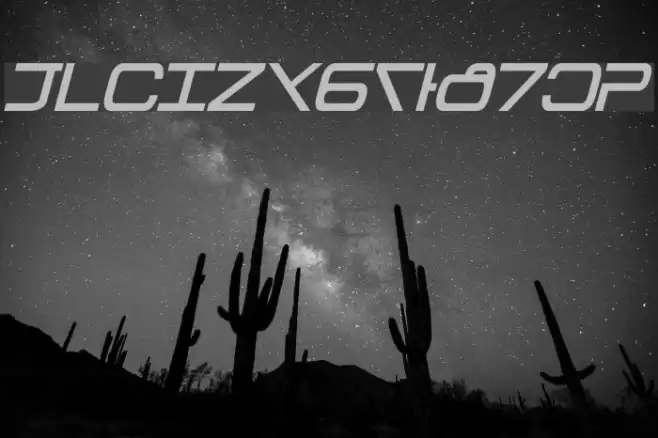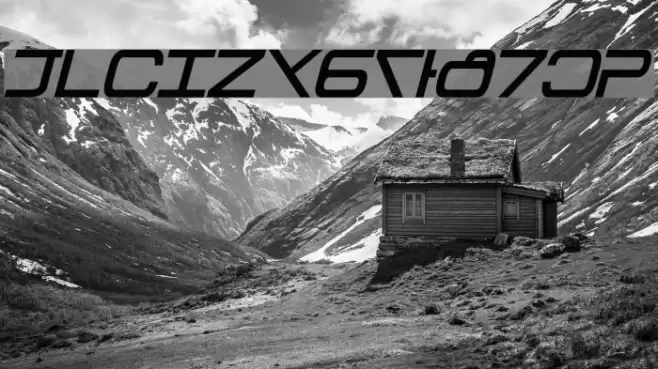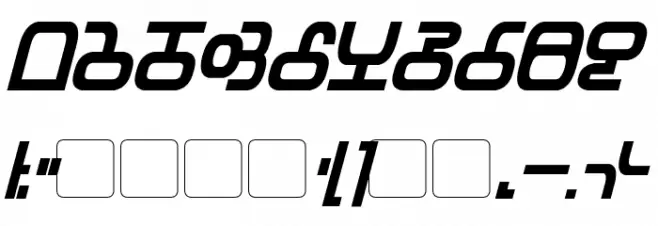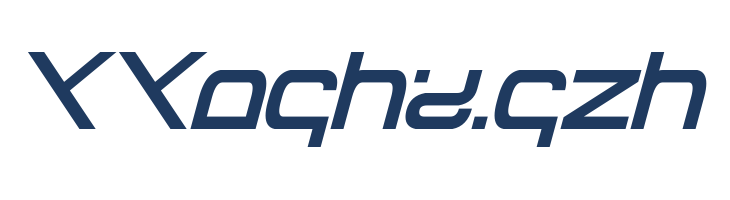
Tirolese Bold Italic Font
Tirolese Bold Italic Description
This font features a bold and italicized style with a futuristic and angular design. The characters are sharply defined with a distinct slant, giving them a dynamic and energetic appearance. The strokes are consistent in thickness, providing a uniform look across all characters. The uppercase and lowercase letters maintain a cohesive style, while the numbers and special characters complement the overall design. The font's unique geometric shapes and slanted orientation make it stand out, suitable for projects that require a modern and edgy aesthetic.
A bold, italicized font with a futuristic and angular design from Uncategorized fonts.
- Proposed Projects: Ideal for sci-fi themed graphics, modern branding, tech-related logos, and dynamic posters.